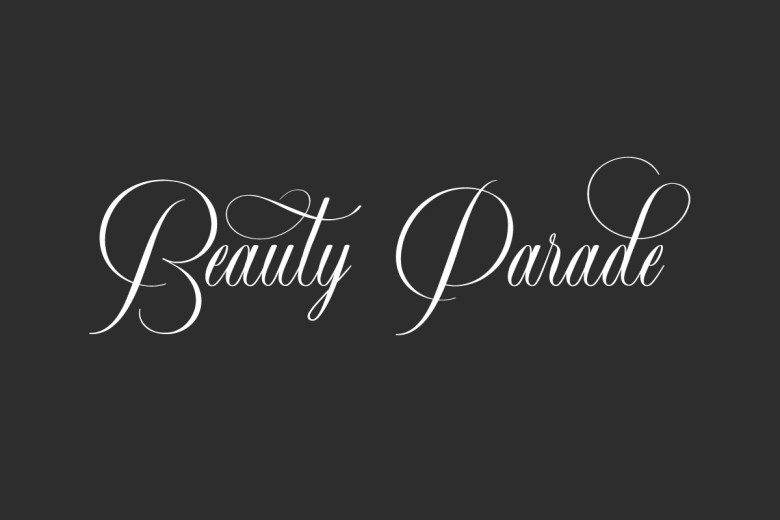
Beauty Parade Font
Beauty Parade its slim and delicate script font that looks stunning on a variety of designs ideas. An include PUA labels which you can easily access all of the glyphs and swashes.